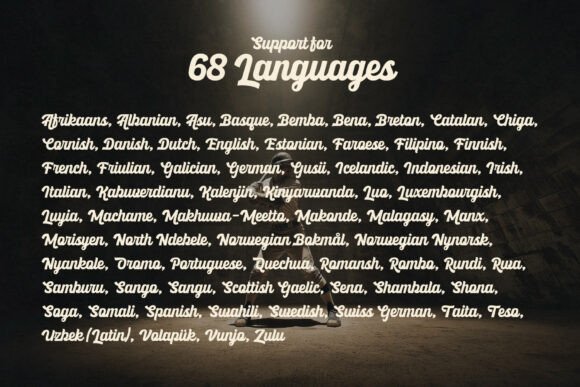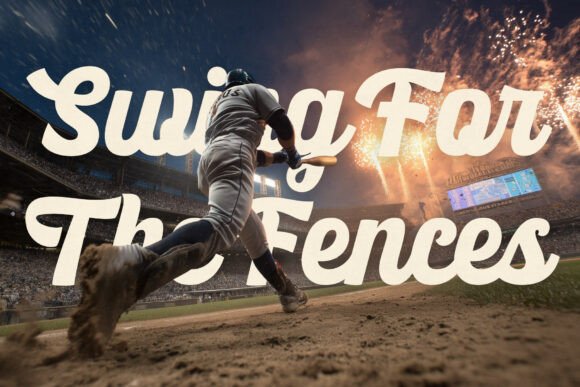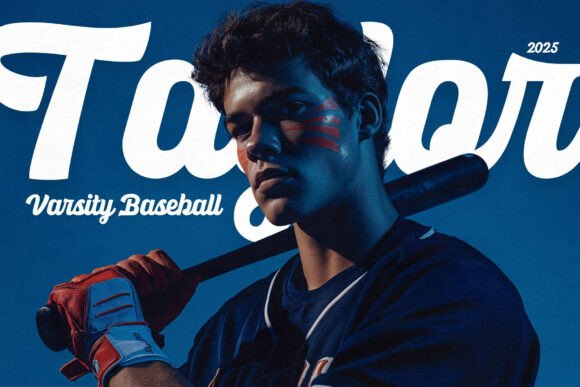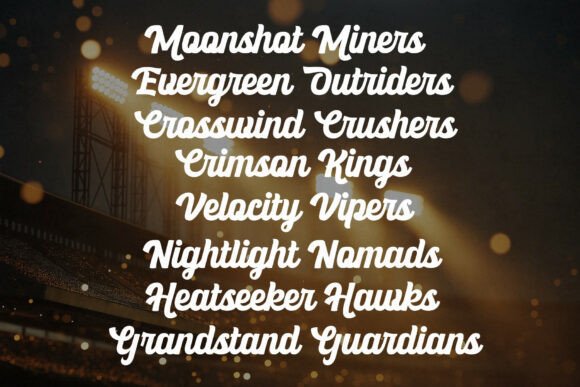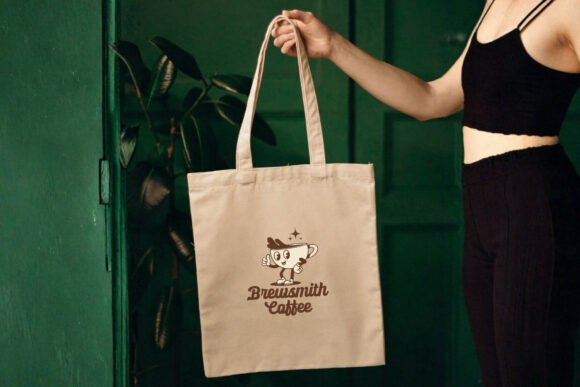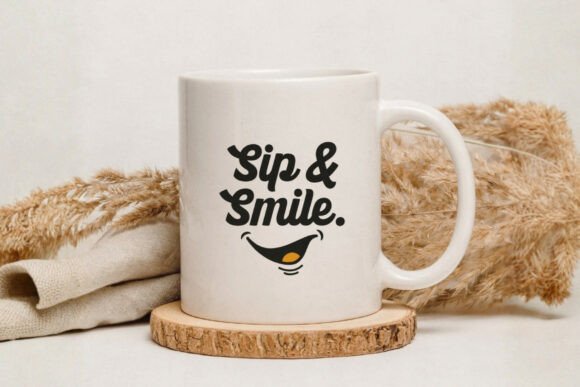
Ballpark Beauty Font: A Grand Slam for Designers
Are you a designer looking to bring the classic aesthetic of baseball into your work? Look no further than the Ballpark Beauty font, a stunning script typeface that captures the essence of America’s favorite pastime. With its bold confidence, vintage charm, and dynamic styles, this font is a must-have for any designer seeking to create striking designs that evoke the spirit of the ballpark.
The Perfect Font for Sports Teams and Vintage Brands
Ballpark Beauty is a versatile font that is perfect for a wide range of design applications, from sports teams and vintage brands to community projects and personal crafts. Its unique blend of elegance and boldness makes it an ideal choice for designers who want to create eye-catching logos, badges, packaging, signage, posters, and merchandise.
Two Dynamic Styles: Regular and Extruded
One of the standout features of Ballpark Beauty is its two dynamic styles: Regular and Extruded. The Regular weight delivers smooth, flowing script elegance, perfect for creating sophisticated designs that exude a sense of nostalgia and classic charm. The Extruded weight, on the other hand, adds instant depth, shadow, and visual impact, giving your designs a 3D effect with zero effort.
Instant 3D Potential
With Ballpark Beauty, you can create striking layered logos, dimensional badges, standout packaging, and nostalgic signage that pops off the page. The font’s Extruded style allows you to add depth and dimension to your designs without the need for complex editing or manipulation. This means you can focus on the creative aspects of your project, rather than getting bogged down in technical details.
Timeless Energy and Athletic Lettering
Every curve and stroke of Ballpark Beauty has been carefully shaped to evoke the timeless energy of athletic lettering. The font is bold, spirited, and full of movement, capturing the excitement and dynamism of the ballpark. Whether you’re designing for sports teams, vintage brands, or community projects, Ballpark Beauty is the perfect choice for creating designs that are both nostalgic and modern.
So, what can you create with Ballpark Beauty? The possibilities are endless! Here are just a few ideas to get you started:
- Striking layered logos and dimensional badges
- Standout packaging and nostalgic signage
- Sports posters and team merchandise
- Apparel designs and embroidered patches
- Vintage-style advertising and marketing materials
Why Choose Ballpark Beauty?
So, why choose Ballpark Beauty over other fonts? Here are just a few reasons:
- Unique and distinctive design that captures the spirit of classic baseball aesthetics
- Two dynamic styles: Regular and Extruded, for instant 3D potential
- Perfect for sports teams, vintage brands, and community projects
- Easy to use and versatile, with endless design possibilities
In conclusion, Ballpark Beauty is a grand slam of a typeface that is sure to delight designers and crafters alike. With its bold confidence, vintage charm, and dynamic styles, this font is the perfect choice for creating striking designs that evoke the spirit of the ballpark. Whether you’re designing for sports teams, vintage brands, or community projects, Ballpark Beauty is a must-have font that is sure to hit a home run with your audience.